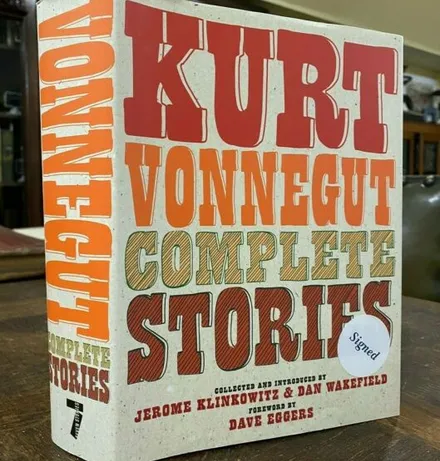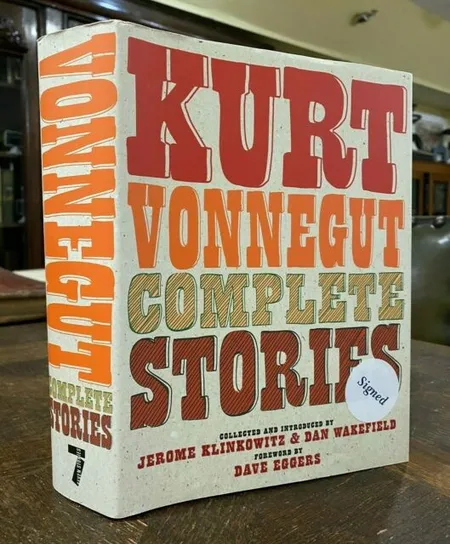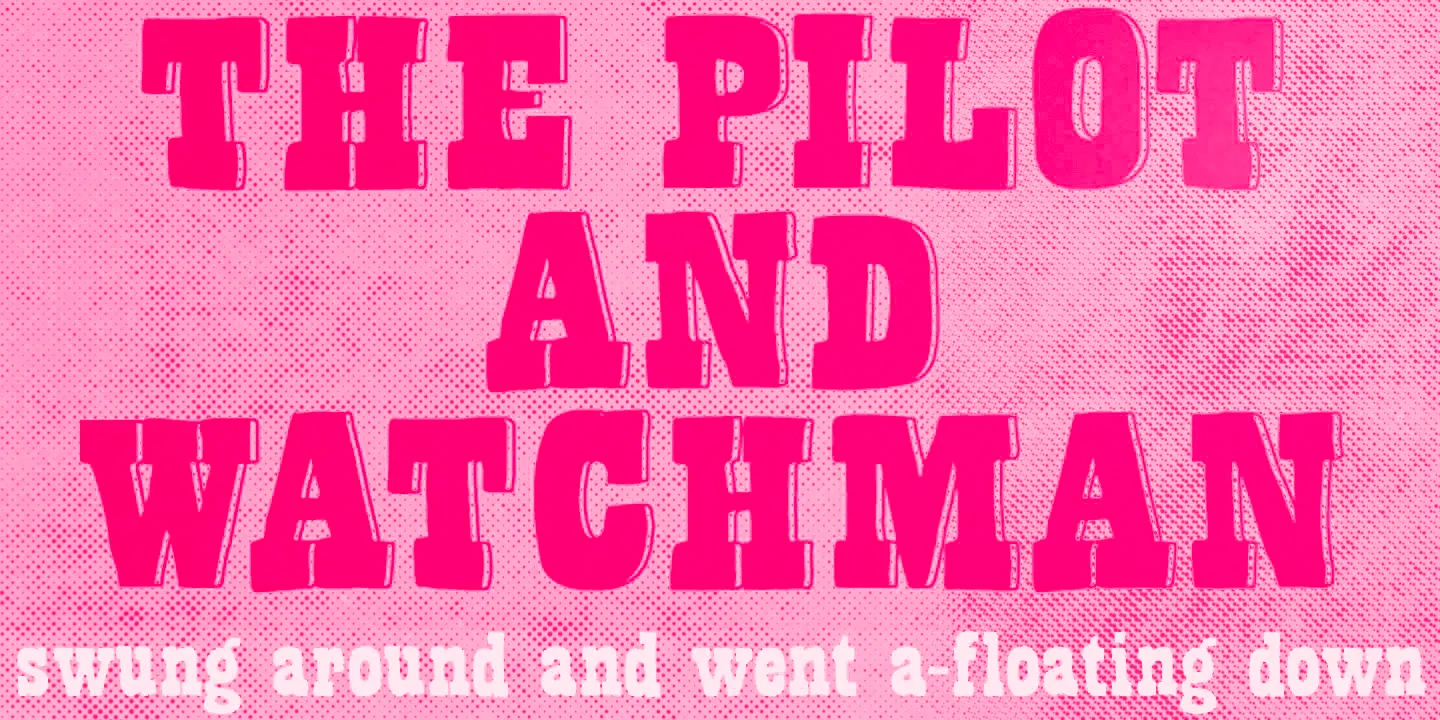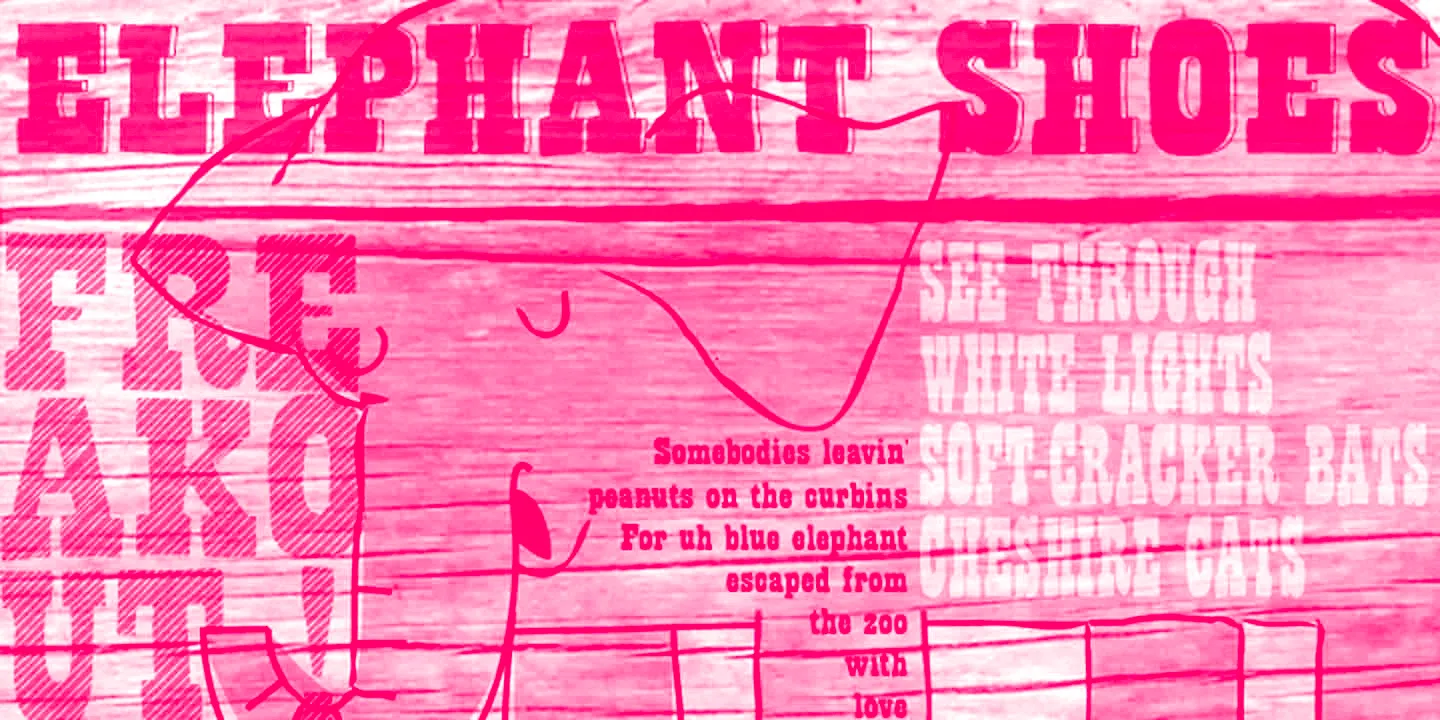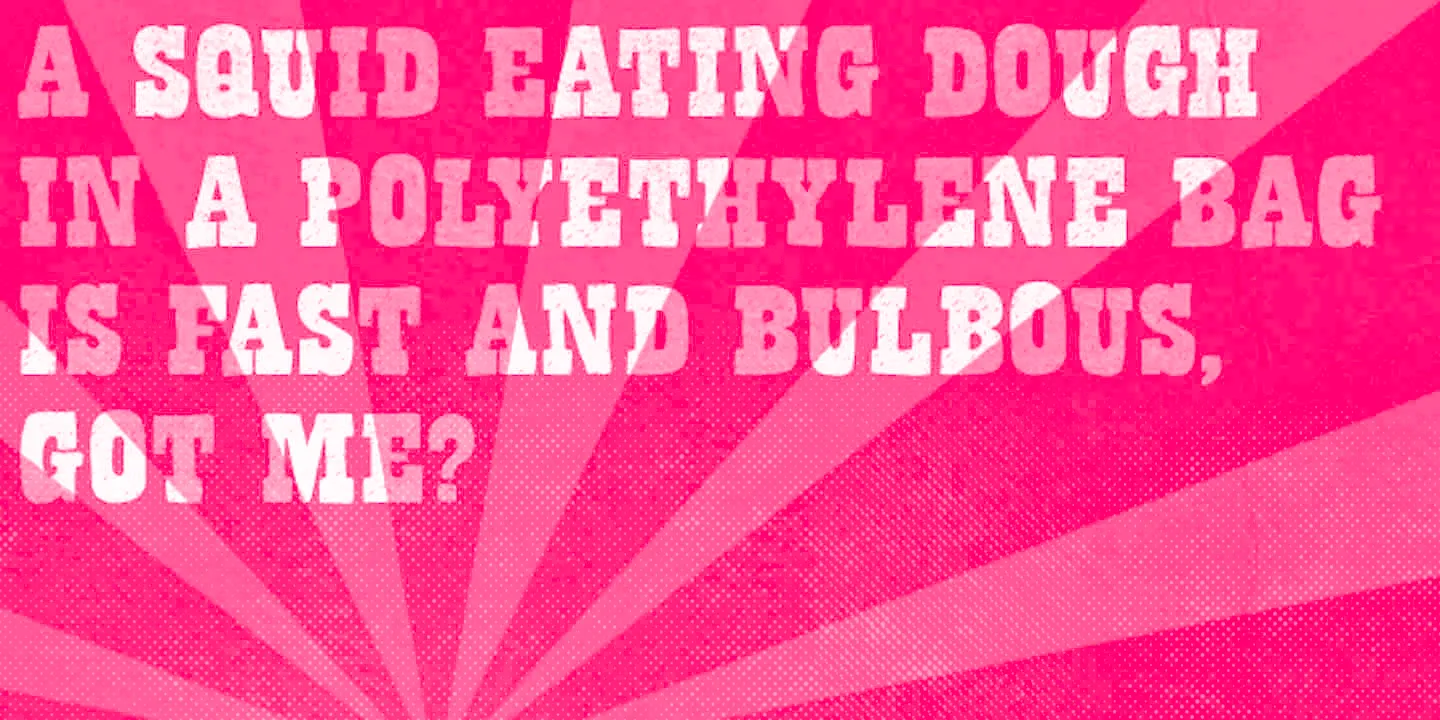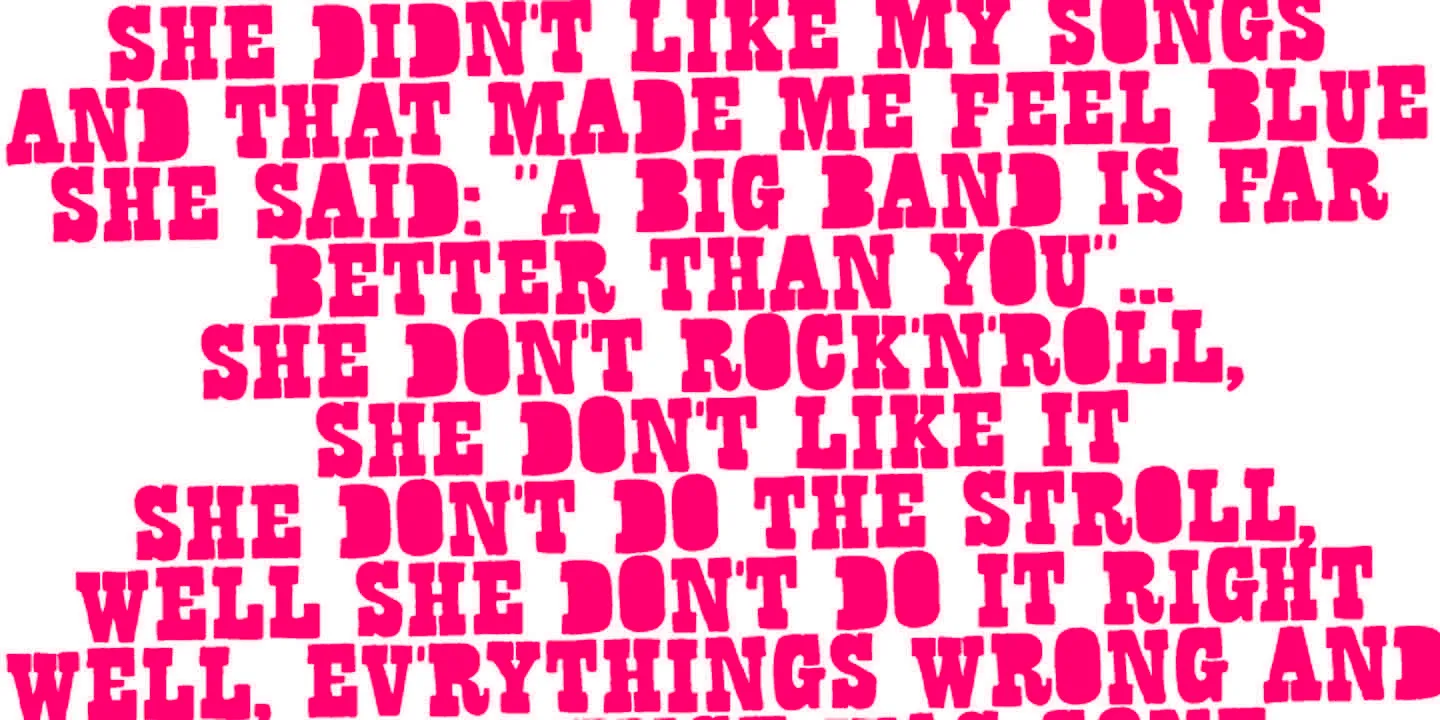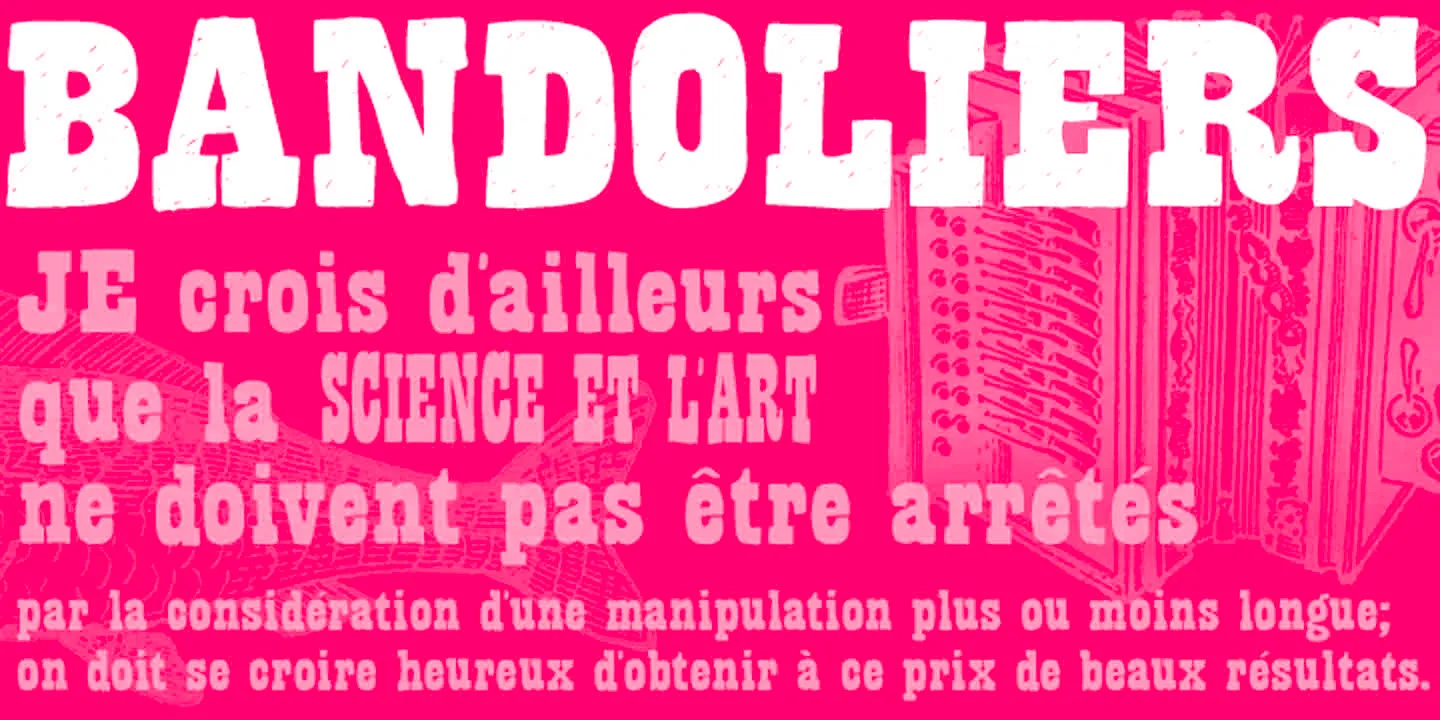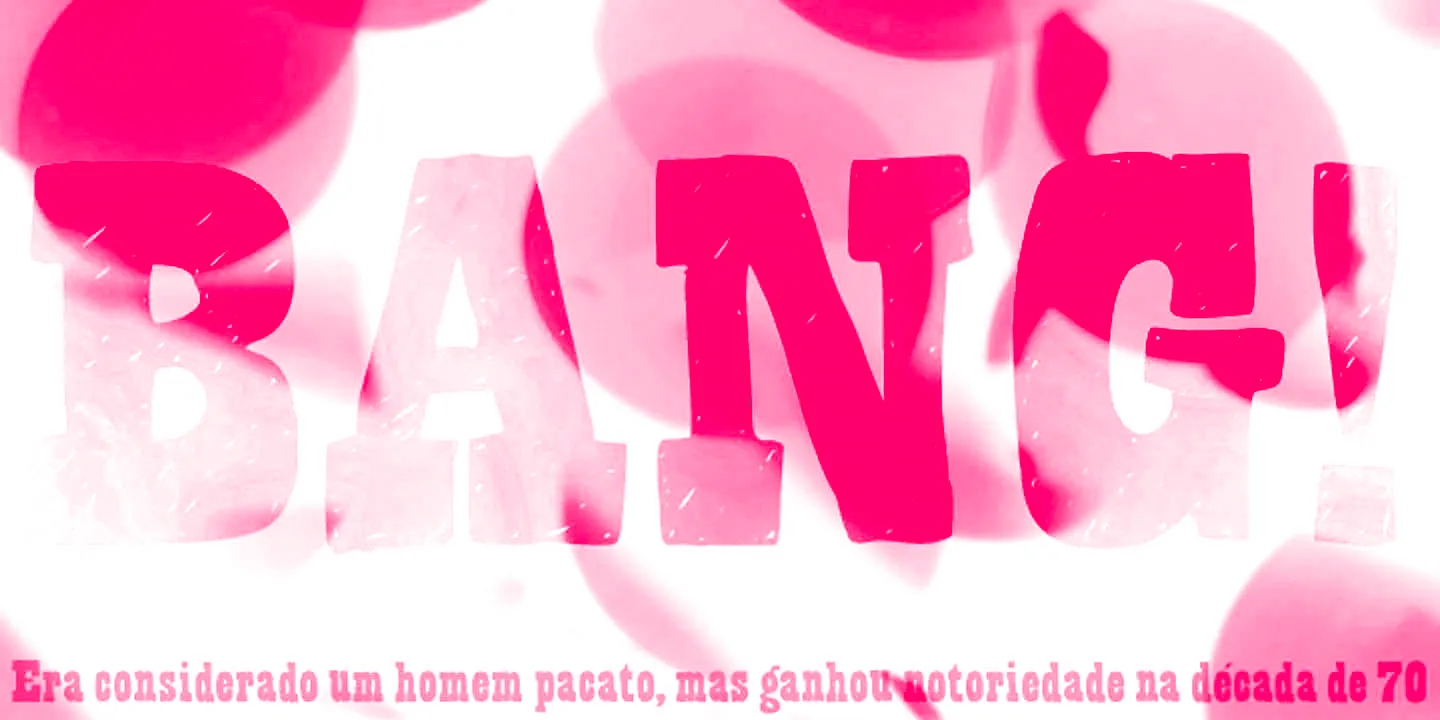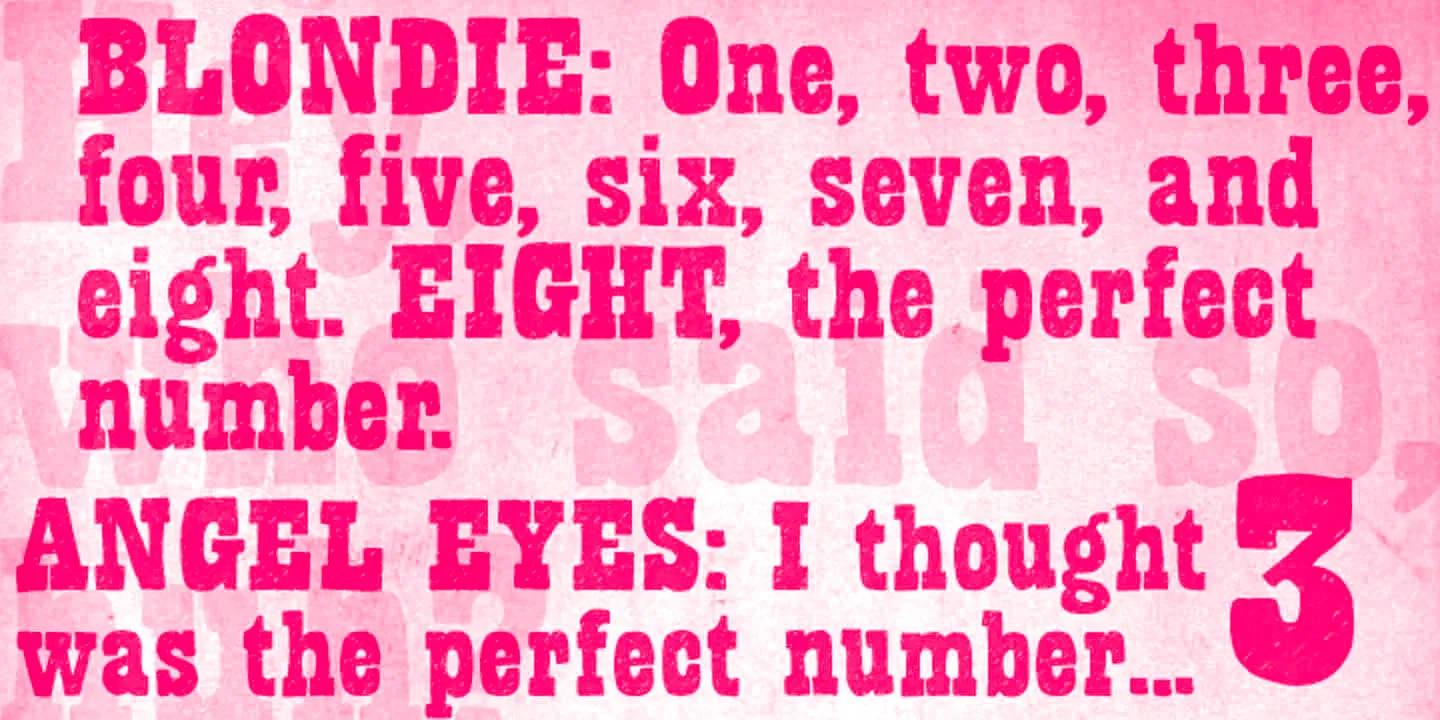
Bandoliers Fonts
Bandoliers
Bandoliers is a ruggedly bold hand-lettered slab serif. Dusty and charmingly rustic, the rough-and-ready texture leans into the Wild West. Beefy, Dizzy, High, Jailed, Regular, Rocky, Shaved, or Slim, this decorative font family offers a range of distinctly expressive options. Bold, nostalgic, and unapologetically loud, use it to add grit and impact to anything needing to make a statement.